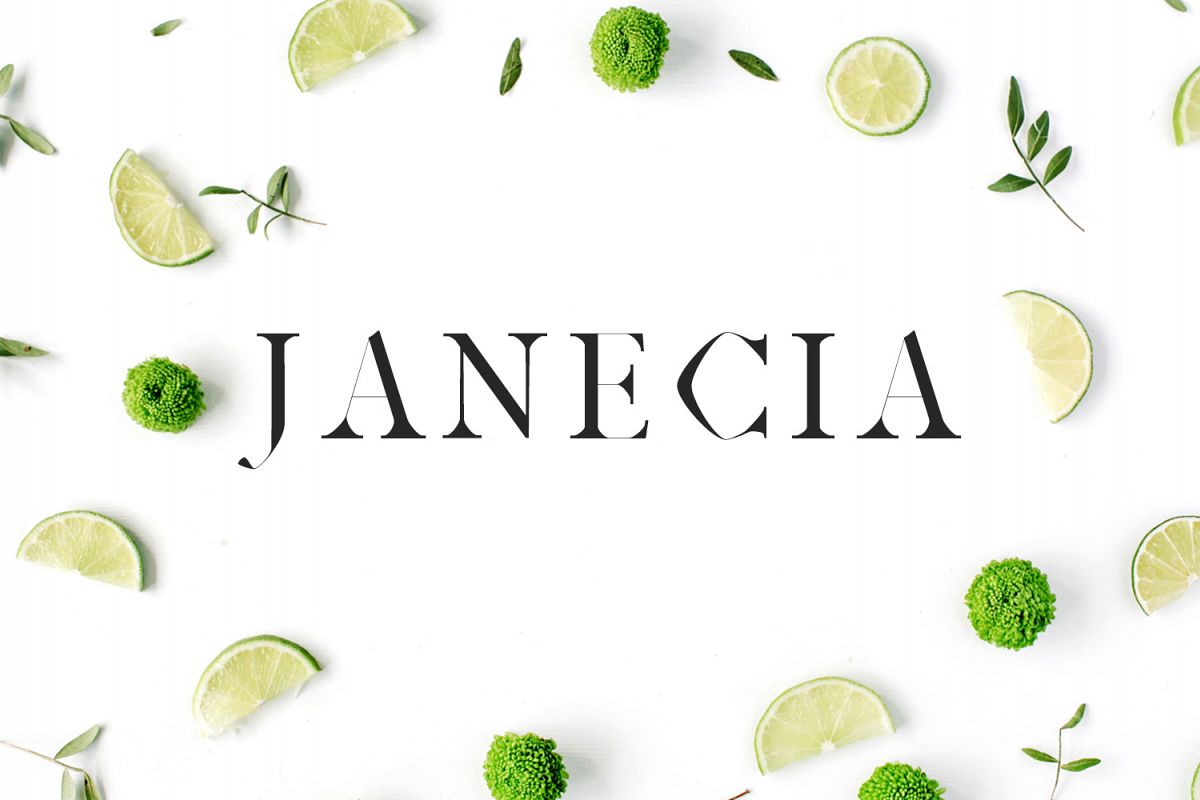
Janecia Serif Typeface
Janecia--Regular
Janecia--Thin
Janecia--Light
Janecia Serif Typeface is a clean 3 font family pack, It features unique and modern serif look and feel. Perfect for gorgeous logos, titles, web layouts and branding. It looks gorgeous in all caps with a wide-set spacing if you want to try a classy look, or beautiful on its own in capital and lowercase letters for something completely timeless.
Included Features:
• Font Weight: Regular, Light and Thin
Janecia Font Features:
• Uppercase Multilingual Letters
• Lowercase Multilingual Letters
• Alternative